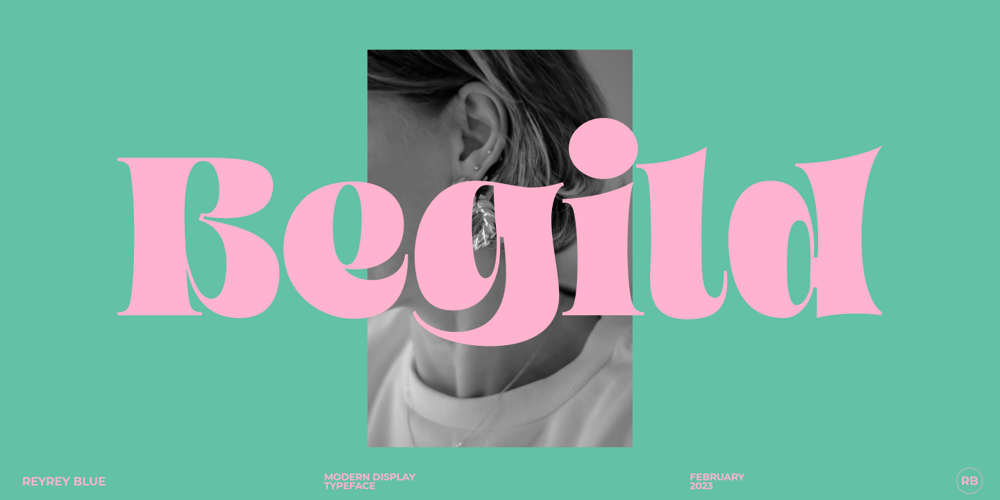
Begild
Begild font
Begild Font Family was designed by Risca Anitawati and published by Reyrey Blue Std. Begild contains 1 styles and family package options. Introducing, Begild Typeface. It’s bold, fun, and attractive, this modern serif will keep your work fresh with appealing look. Begild Typeface is perfectly suitable for layout design for quotes or body copy, best used as a display for headings, logos, branding, magazines, product packaging, invitations. logotypes, and much more. Don’t wait to add this groovy font to your collection and explore the uniqueness of this typeface!Features :· All Uppercase and Lowercase· Number & Symbol· Supported Languages· Ligatures· PUA EncodedHope you enjoy with our font!